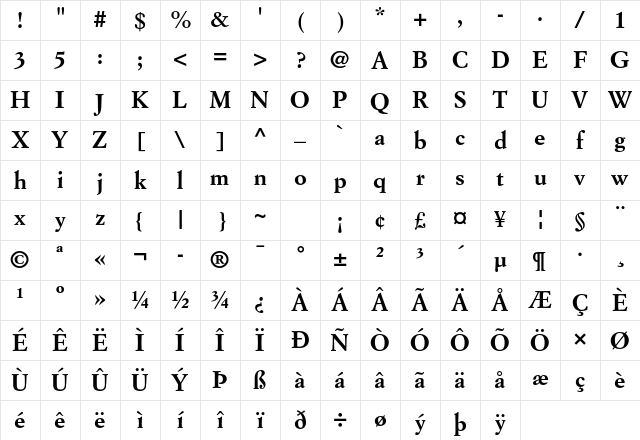
Simoncini Garamond Std Bold Free Font
Simoncini Garamond Std Bold
Designer: Francesco Simoncini, W. Bilz
Design Context for Simoncini Garamond Std
Simoncini Garamond Std is a composed and adaptable typeface that performs quietly and consistently across a wide range of design contexts. Its bold stroke weight gives it real presence on the page.